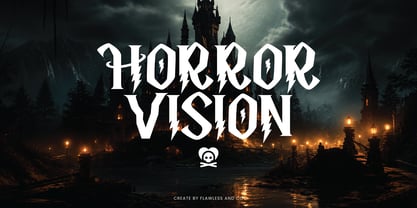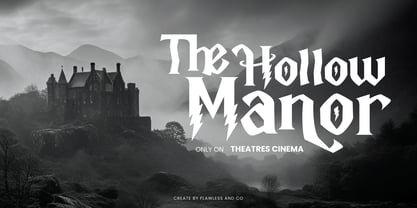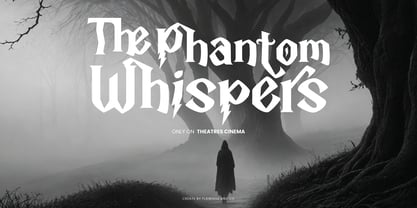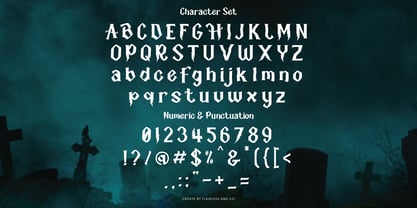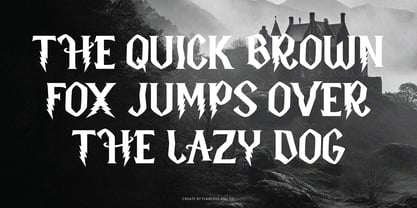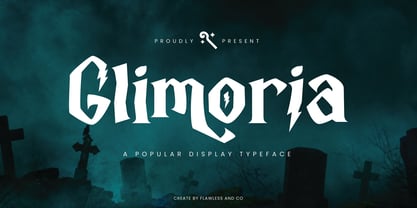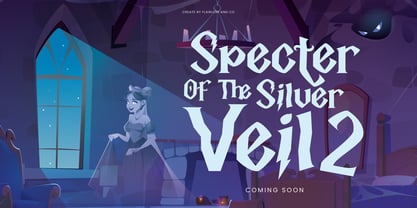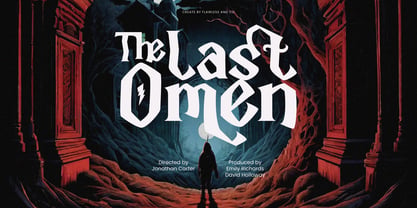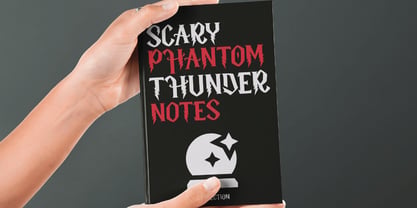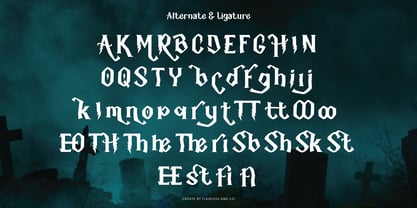
Glimoria
by Flawlessandco
The Glimoria Font Family was designed by Achmad Yani and published by Flawlessandco. Glimoria contains 1 styles. More about this family
Glimoria is a horror display font that brings a spine-chilling and eerie vibe to your designs. With its sharp edges and haunting aesthetic, this font is suitable for horror movie posters, Halloween-themed designs, spooky invitations, thriller book covers, gaming titles, and eerie branding projects. Its unsettling yet captivating look will instantly set the perfect dark atmosphere.
Features :
Multilingual, Uppercase alphabet A-Z, Lowercase alphabet a-z, Numbers 0-9, Some punctuation, Alternates & Ligatures
Designers: Achmad Yani
Foundry: Flawlessandco